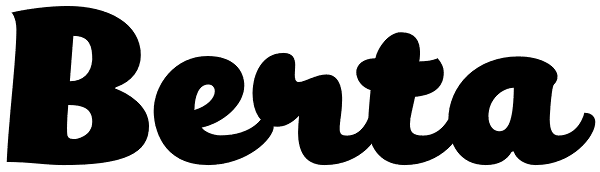
Berta
This font is versatile and expressive, it can create appealing atmosphere and attract attention, conveying a gamut of message and emotions. It is well suited in the jobbing areas like packaging, logotypes, magazines, web pages and advertising, etc...